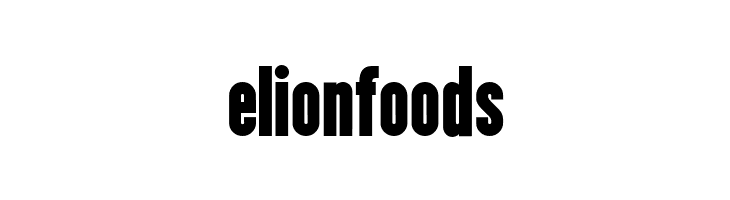
A bold, distressed font with a gritty, urban aesthetic.
A tall, narrow, and modern font with a sleek and sophisticated style.
A bold, condensed font with a modern and impactful style.
A bold, dynamic font with a three-dimensional, shadowed effect.
A bold, angular font with a three-dimensional, shadow-like effect.
A bold, slab serif font with strong, well-defined characters.
A bold, italicized font with a modern and impactful style.
A modern italic font with a dynamic slant and sleek design.
A bold, modern serif font with sharp edges and a structured design.
A bold, geometric font with a vintage poster style.